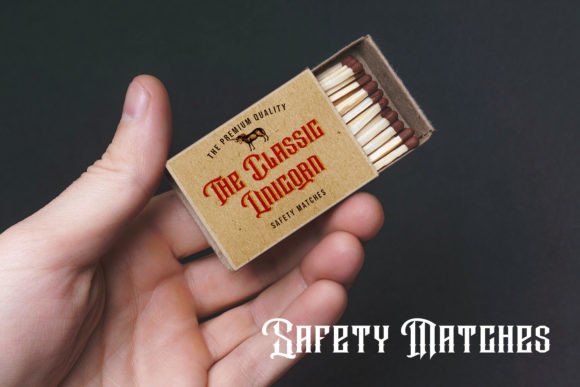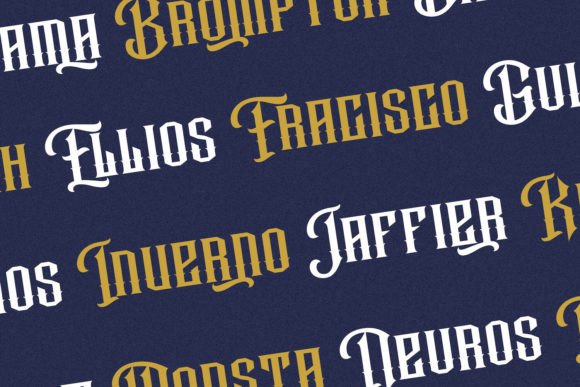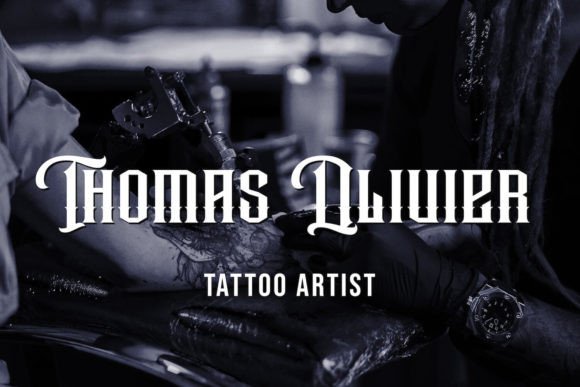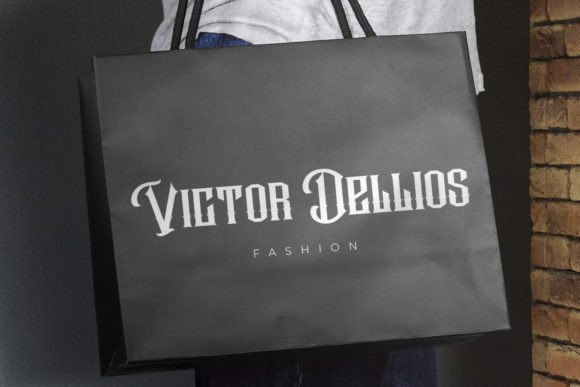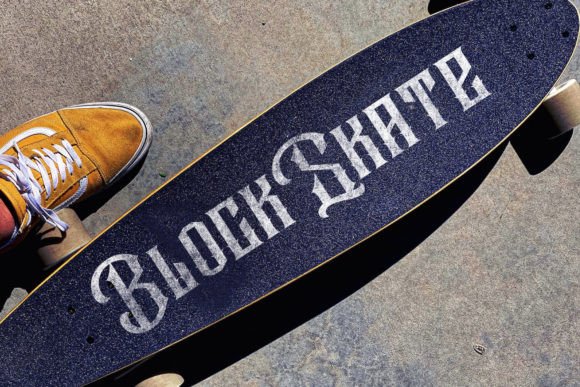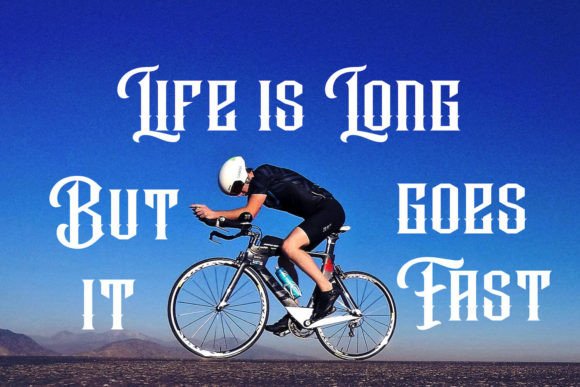
Introducing Hanzow Sewick – Victorian Font
In the realm of typography, few fonts manage to capture the essence of Victorian elegance and vintage charm as effectively as Hanzow Sewick. This unique blackletter font is a masterpiece of design, blending playfulness with nostalgia to deliver an aesthetic that is both timeless and captivating. Inspired by the intricate details of vintage tattoo designs, Hanzow Sewick stands out as a stunning and eye-catching typeface, perfect for a wide range of design projects.
The Essence of Victorian Style
The Victorian era, known for its ornate and sophisticated style, has long been a source of inspiration for designers seeking to infuse their work with a sense of history and grandeur. Hanzow Sewick embodies this Victorian spirit, with its romantic and bold formations that evoke the era’s love for detail and opulence. The font’s elegant blackletter style, characterized by its dramatic flourishes and intricate lettering, brings a touch of classic sophistication to any design.
A Playfully Nostalgic Feel
What sets Hanzow Sewick apart from other Victorian-style fonts is its playfully nostalgic feel. The font strikes a perfect balance between elegance and whimsy, making it an excellent choice for designers looking to add a vintage touch to their projects without sacrificing modern appeal. This nostalgic quality is reminiscent of antique engravings and vintage posters, yet it feels fresh and contemporary, capable of enhancing a wide array of design applications.
Inspiration from Vintage Tattoo Design
Hanzow Sewick’s design is deeply rooted in the aesthetics of vintage tattoo art, a bold and expressive medium known for its distinctive style and symbolism. The font captures the essence of this art form, incorporating its characteristic bold lines, intricate details, and emotional intensity. This inspiration lends Hanzow Sewick a unique edge, making it particularly suitable for projects that require a strong visual statement.
One of the key advantages of Hanzow Sewick is its versatility. This font can seamlessly integrate into a variety of design contexts, from classic and traditional to modern and innovative. Whether you’re working on a branding project, a packaging design, a website, or a craft project, Hanzow Sewick can add a distinctive touch that elevates your work. Its bold and eye-catching appearance makes it particularly effective for headlines, titles, and any design element where you want to draw attention.
Attention to Detail
A standout feature of Hanzow Sewick is its meticulous attention to detail. Every letterform is crafted with care, showcasing intricate flourishes and elegant lines that contribute to the font’s overall charm. This attention to detail not only enhances the aesthetic appeal of the font but also ensures its legibility and usability across different design applications.
Why Designers and Crafters Love Hanzow Sewick
Designers and crafters alike are drawn to Hanzow Sewick for its unique blend of vintage charm and modern usability. The font’s distinctive style allows for the creation of visually striking designs that stand out in a crowded digital landscape. Moreover, its ease of use and flexibility make it a practical choice for a wide range of projects, from digital graphics and web design to print materials and handmade crafts.
Hanzow Sewick is more than just a font; it’s a design statement. With its Victorian elegance, vintage charm, and bold aesthetic, it offers designers and crafters a powerful tool for creating memorable and impactful designs. Whether you’re looking to add a touch of nostalgia to your work or simply seeking a font that stands out, Hanzow Sewick is an excellent choice. Its unique blend of playfulness, elegance, and attention to detail ensures that it will become a go-to typeface for anyone looking to infuse their designs with a sense of history and sophistication.